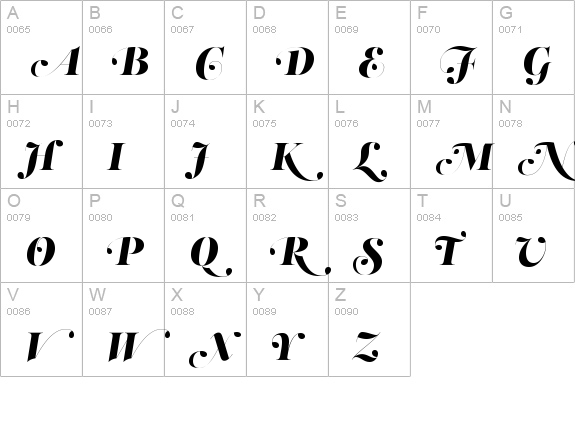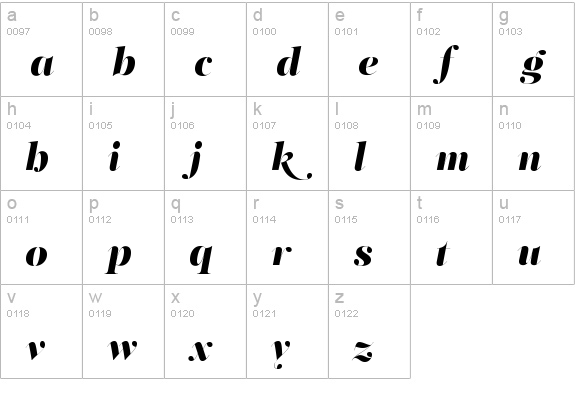
PFRegalSwashPro-Black is a maximum-weight, dramatic variant in the PFRegalSwashPro typeface family \xE2\x80\x94 well suited to maximum-impact headlines, posters, and packaging.
PFRegalSwashPro-Black is a stunning and sophisticated font that exudes elegance and charm. Its bold and expressive letterforms make a powerful statement, perfect for headlines, branding, and luxury design projects. This font features intricate swashes and flourishes that add a touch of refinement and sophistication to any text. The high contrast between thick and thin strokes creates a sense of drama and visual interest. What's even better is that PFRegalSwashPro-Black is available for free download at FontsMarket.com. This means you can easily access this premium font and use it in your projects without any cost. Don't miss out on the opportunity to elevate your designs with this exquisite typeface. Download PFRegalSwashPro-Black today and add a touch of luxury to your work.